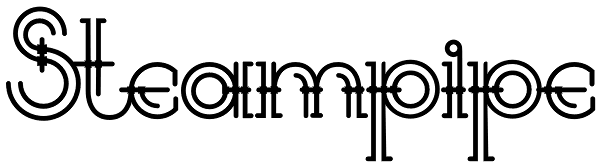
Steampipe
Jules Verne. Wild, Wild West. Tomorrowland. The Past’s extrapolation of the Future. So it was wrong, it’s still romantic. Steampipe is a font constructed of bits and pieces, reminiscent of the ironwork construction of the Crystal Palace or the inner...